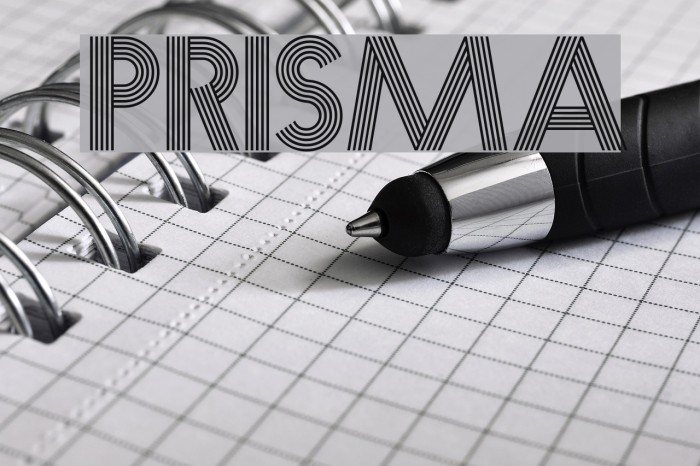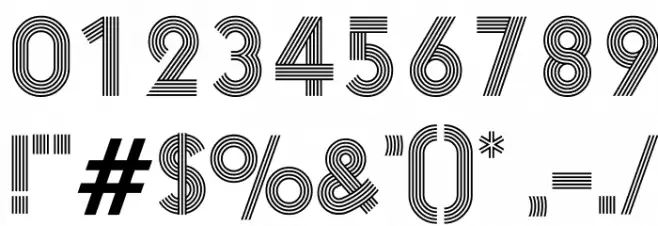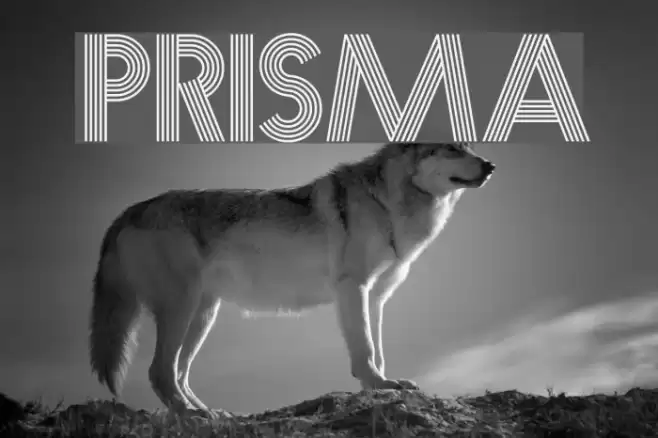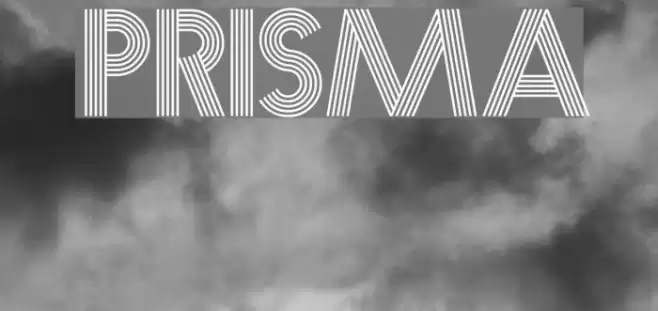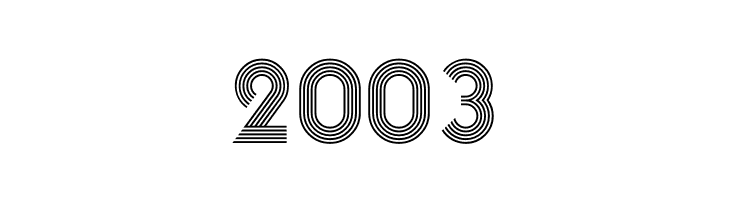
Prisma Font
This font features a unique and striking design characterized by multiple parallel lines forming each character, creating a sense of depth and dimension. The geometric and linear style gives it a modern and futuristic appearance, making it stand out in any design. The uppercase and lowercase letters maintain a consistent structure, while the numerals and special characters follow the same multi-line pattern, ensuring uniformity across the typeface. The overall design is clean and precise, with a focus on symmetry and balance.
A modern, multi-line font with a geometric and dimensional style.
- Proposed Projects: Ideal for branding, posters, headlines, and any project requiring a bold, modern statement.